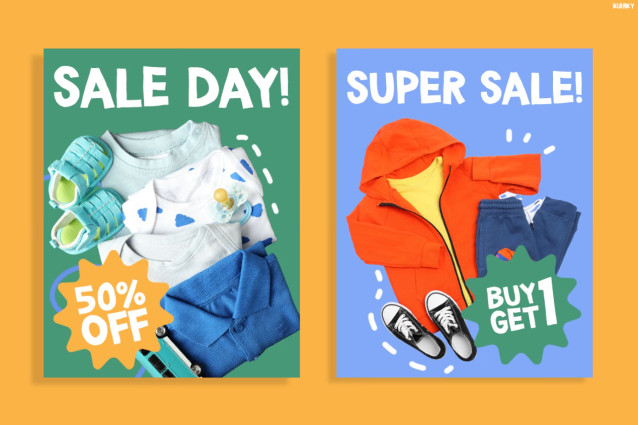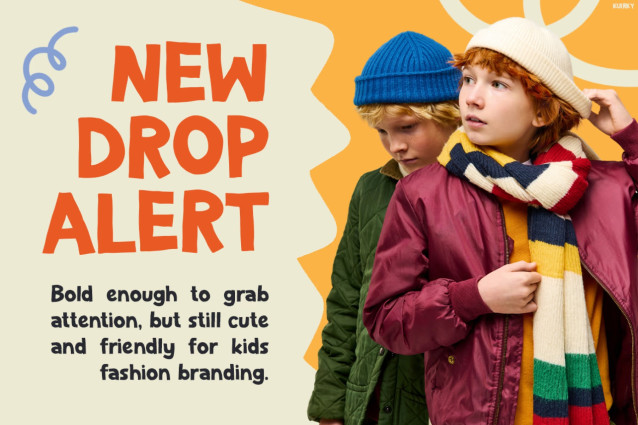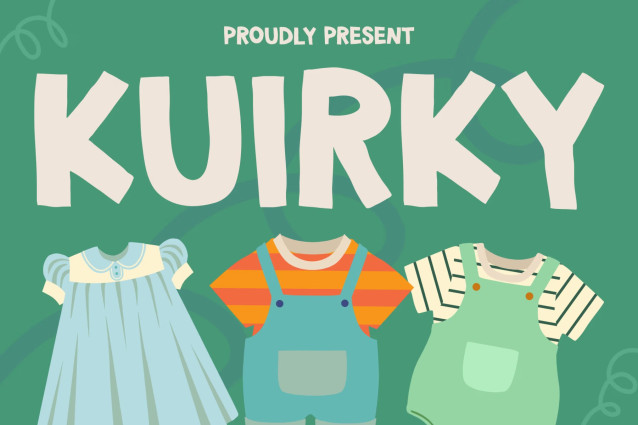
Kuirky Font
Kuirky Font brings cheerful vibes and bold personality to every design. Moreover, its playful hand-drawn style feels friendly and easy to love. The chunky letterforms and soft curves create a cute and energetic look. Its fun proportions also make every word easy to read.
This font stands out because it blends strong impact with warm charm. In addition, Kuirky makes children’s content feel more colorful and memorable. With multilingual support for 67 languages, it works perfectly for global creative projects.